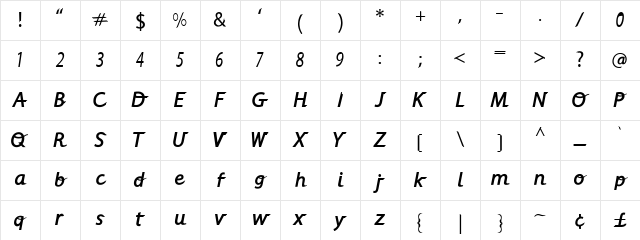
Alpha crisp Regular
Foundry: Richard Colbert
Designer: Richard.Colbert
Design Context for Alpha crisp
Alpha crisp is a composed and adaptable typeface that performs quietly and consistently across a wide range of design contexts.